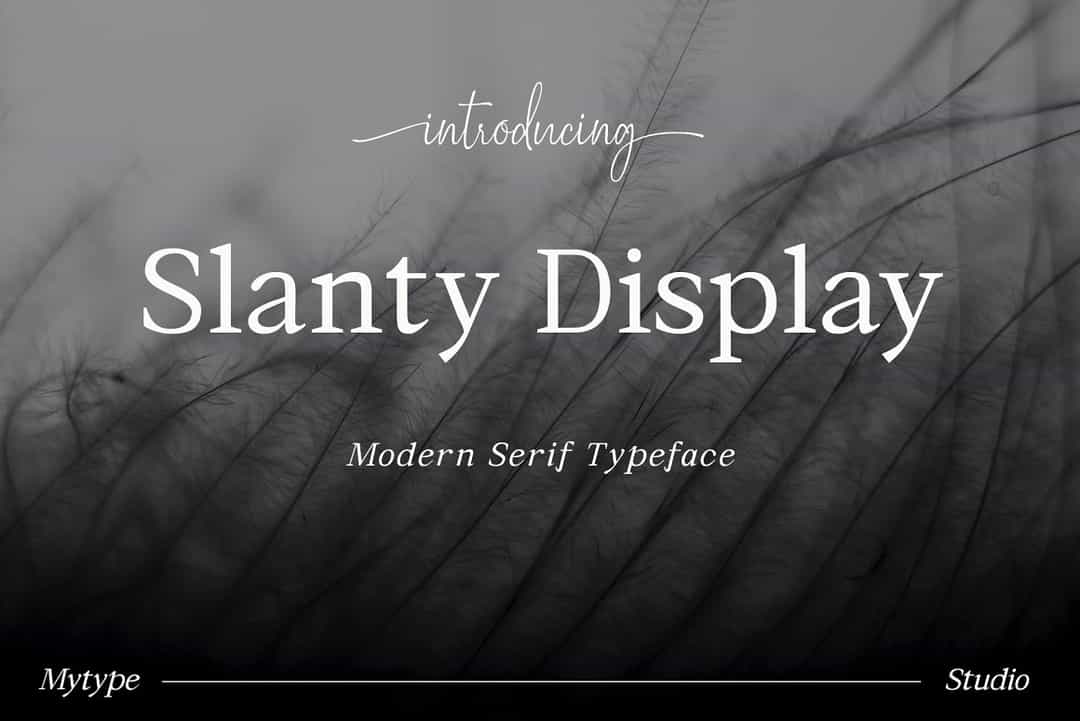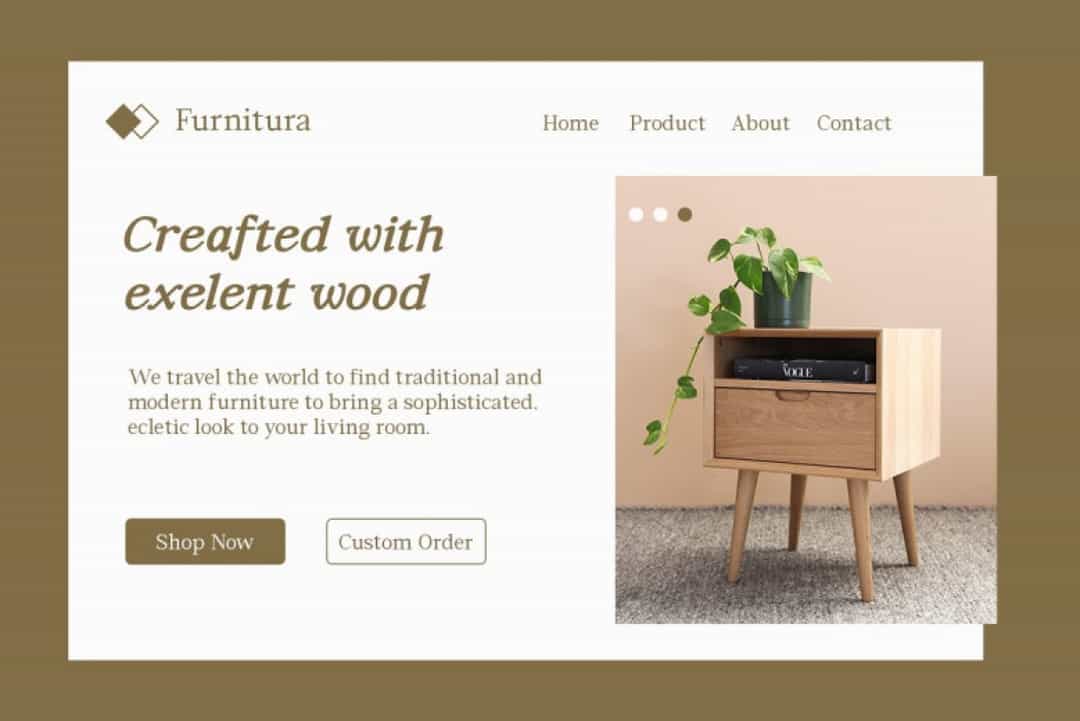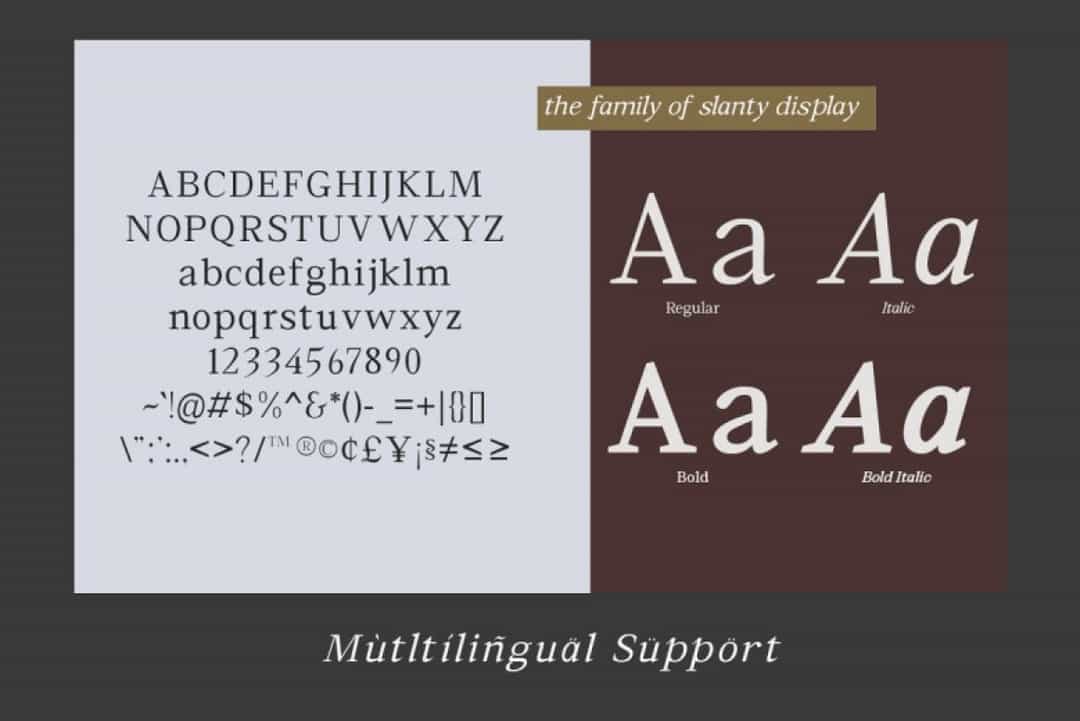
Slanty Display Font is an exquisite contemporary serif font designed to be stunning and bewitching in every character. Ideal for luxurious brand names, logos, editorial designs for women magazines and cosmetic brand advertising designs in fashion industries worldwide; Slanty Display Font can even make stunning advertisements!